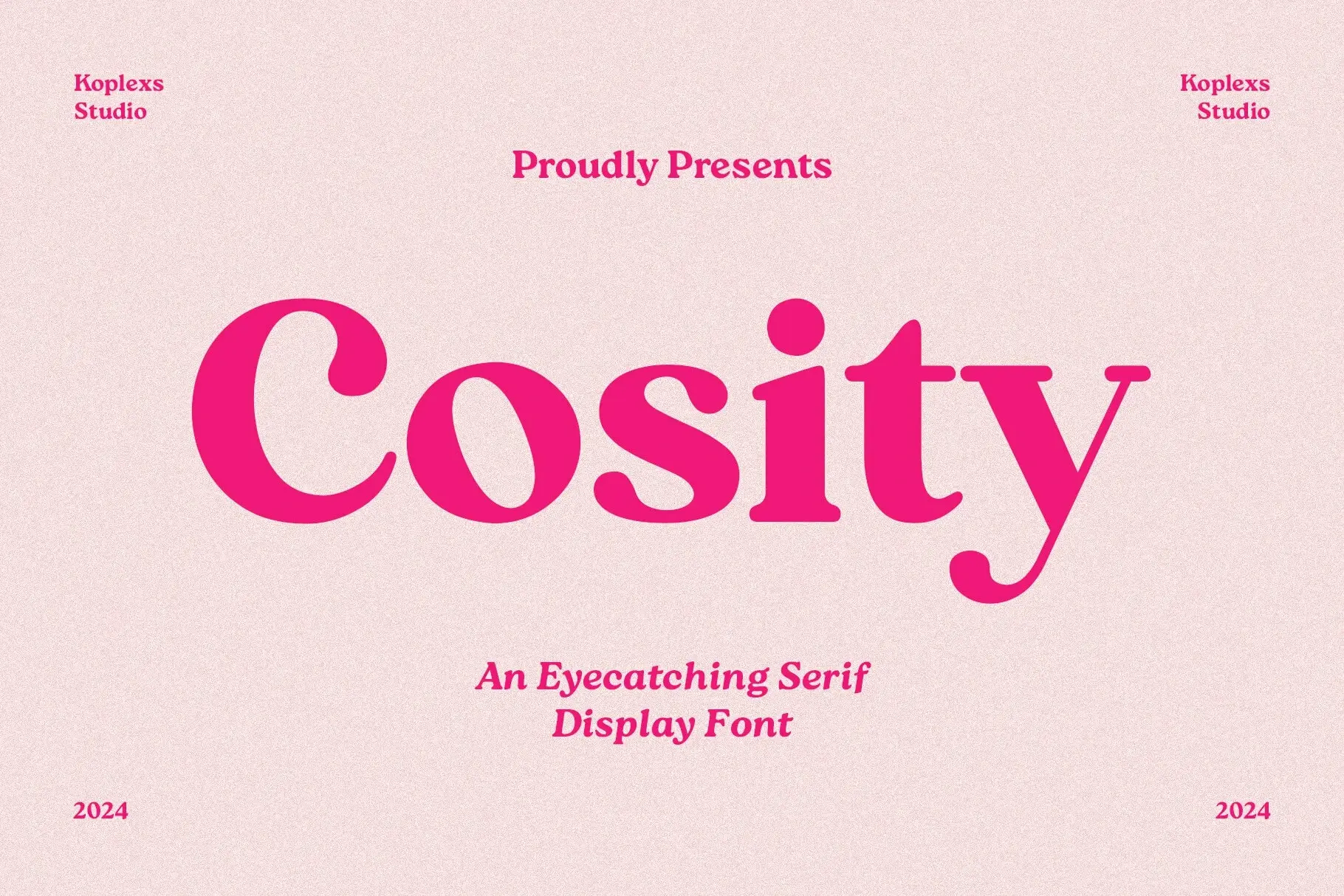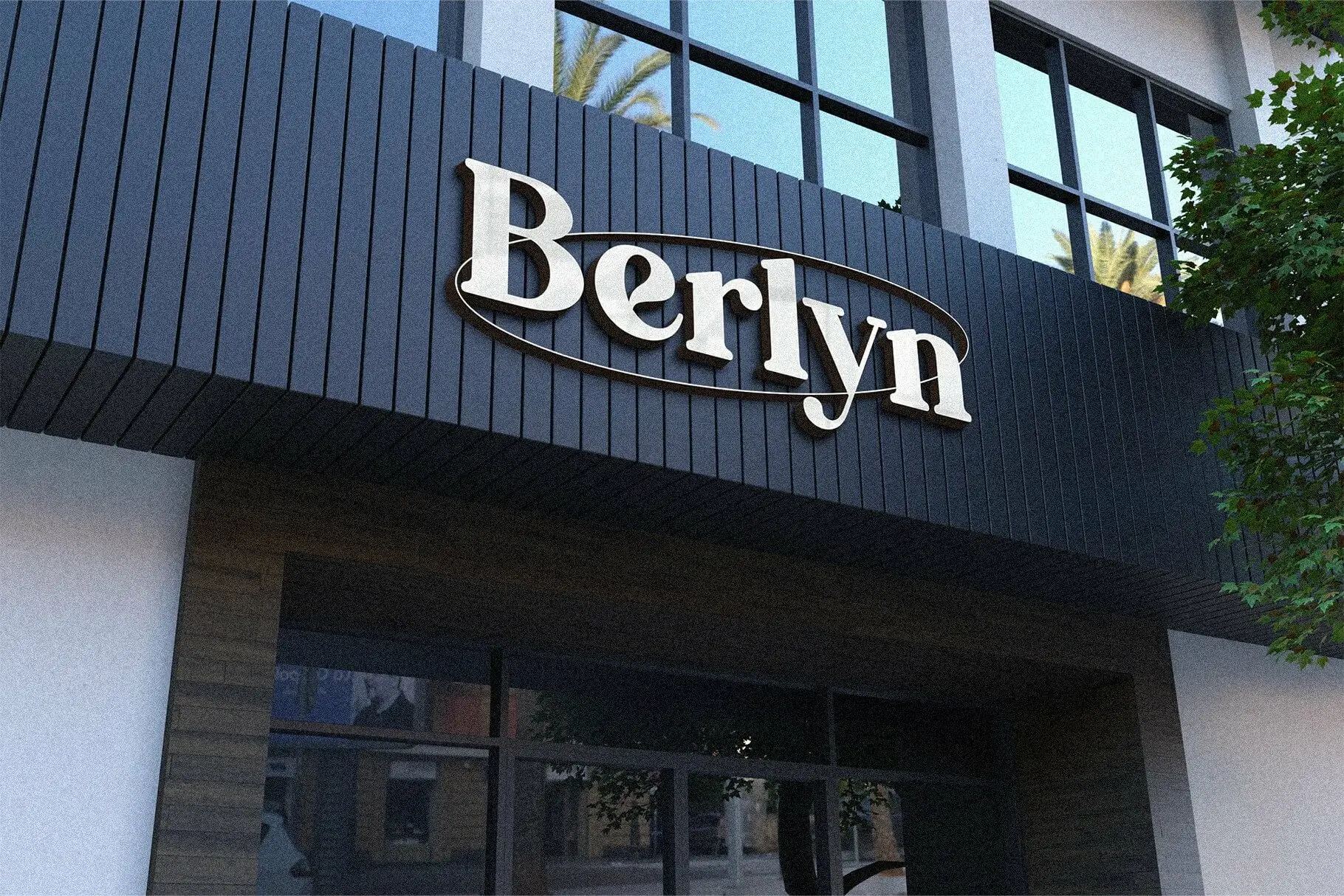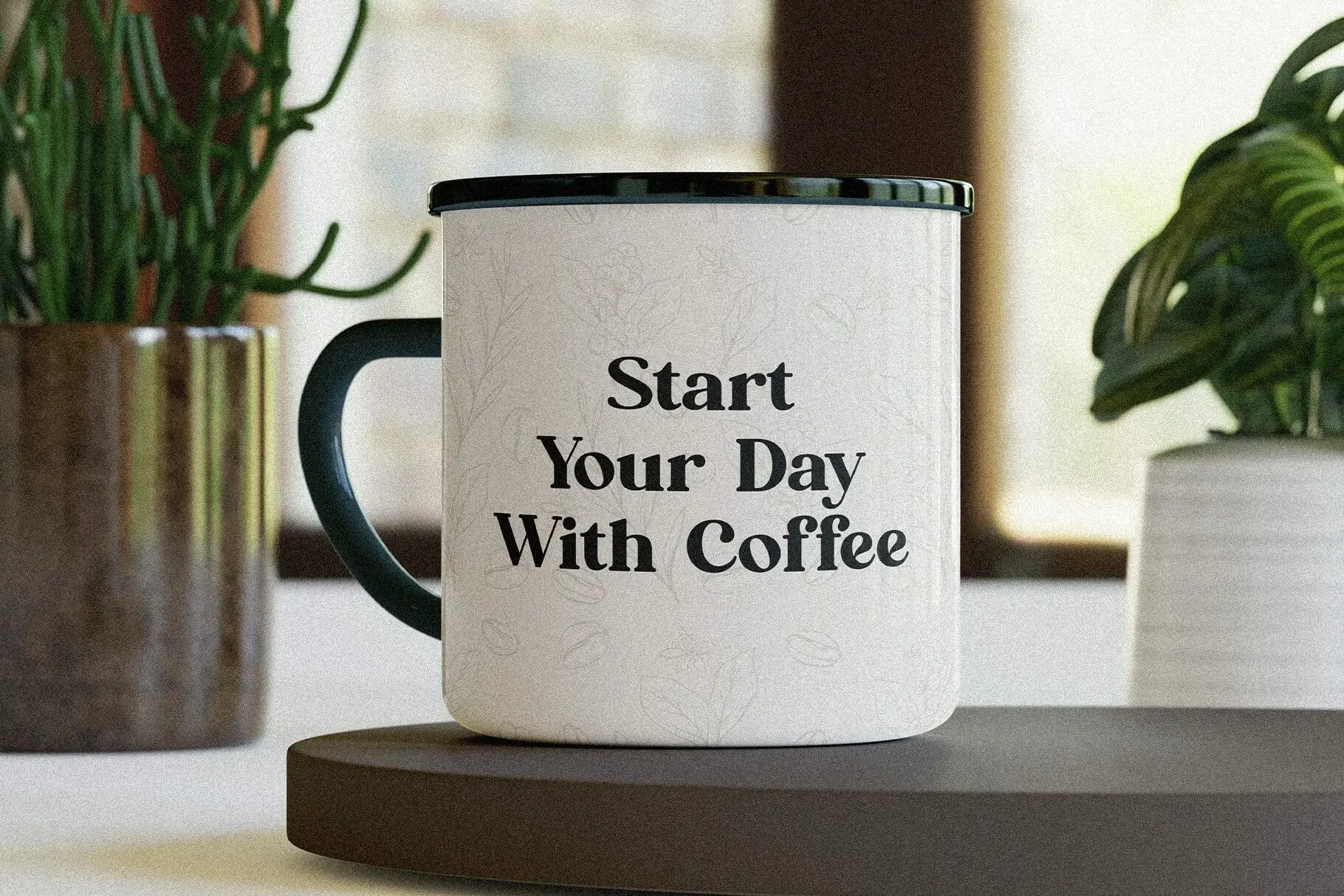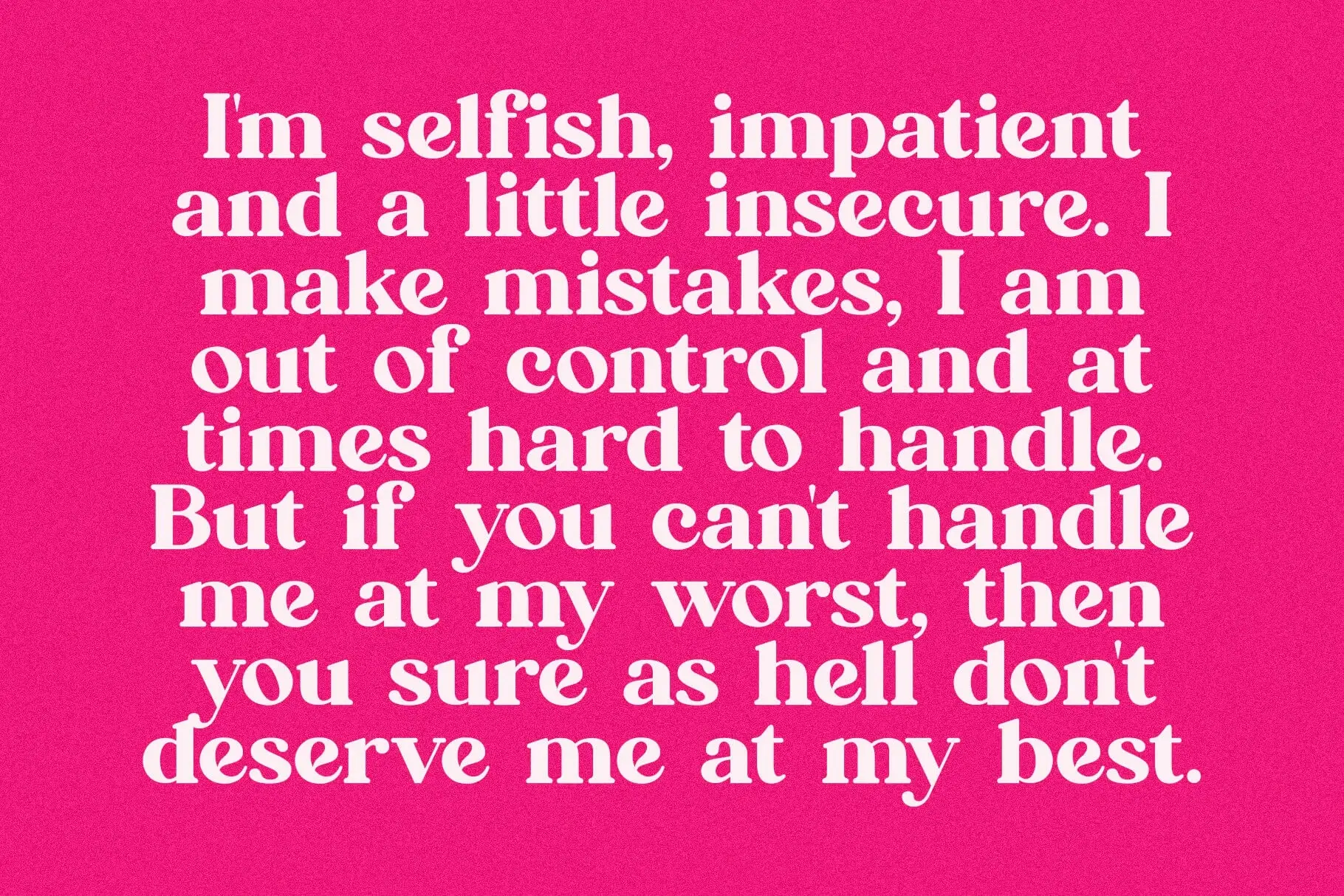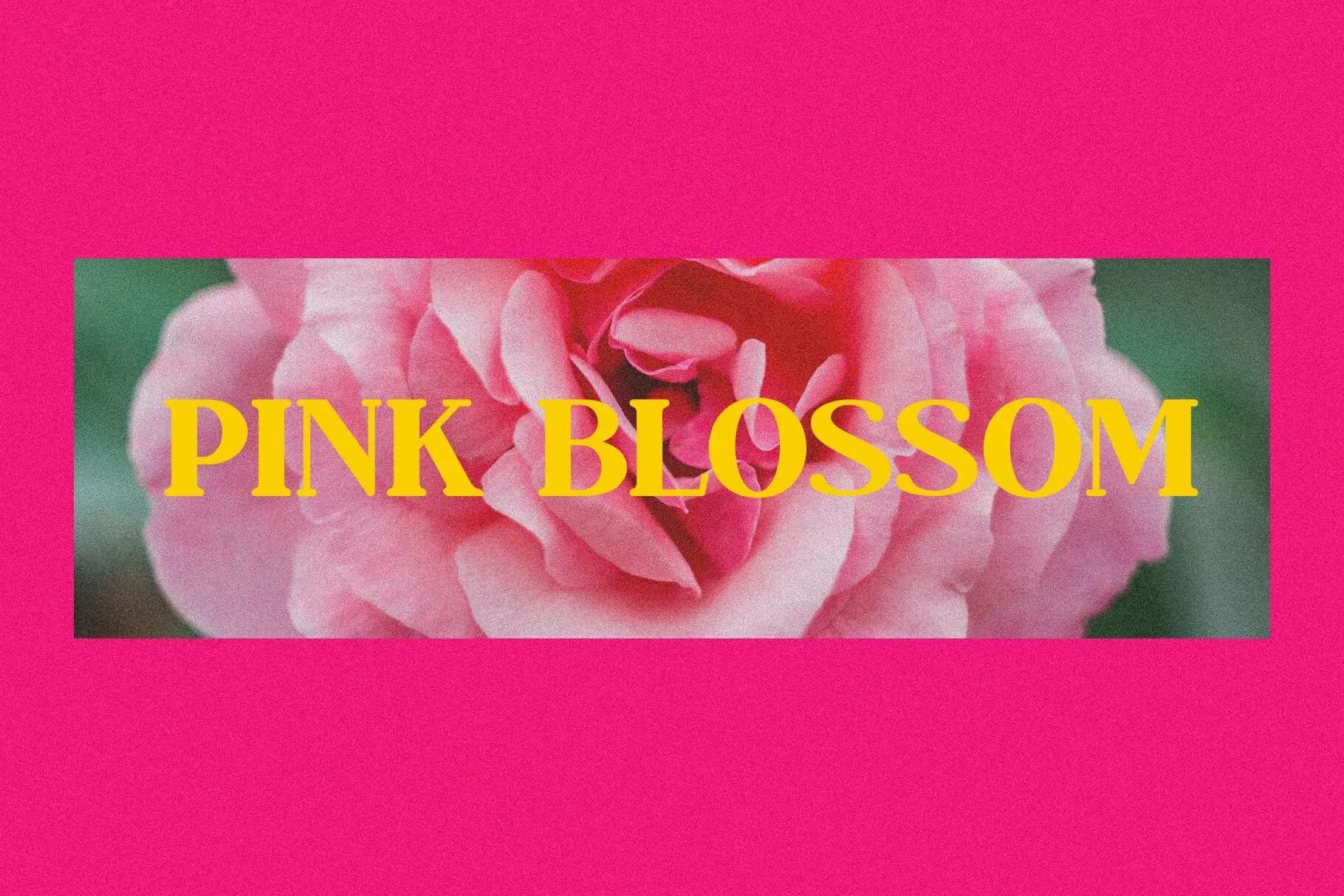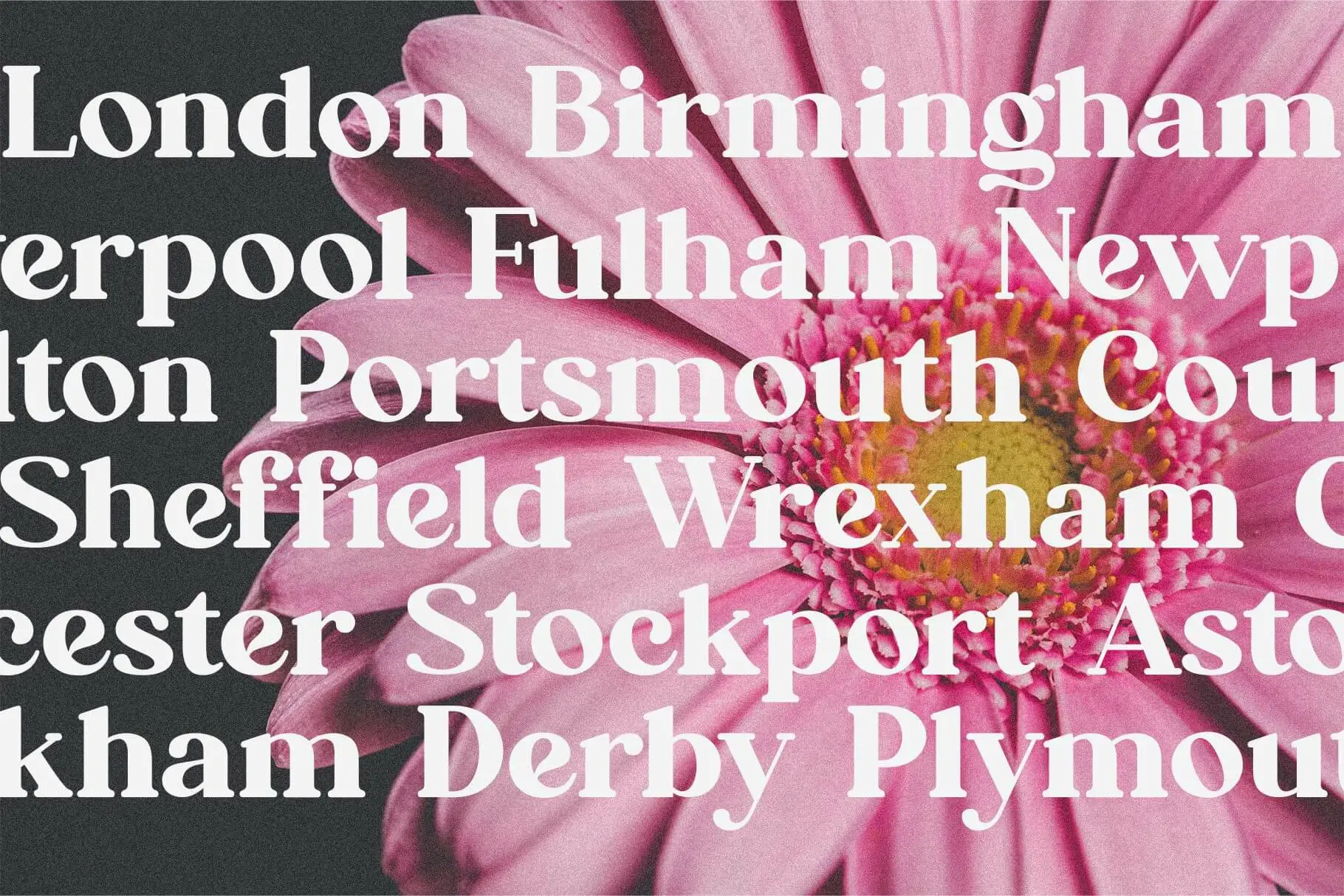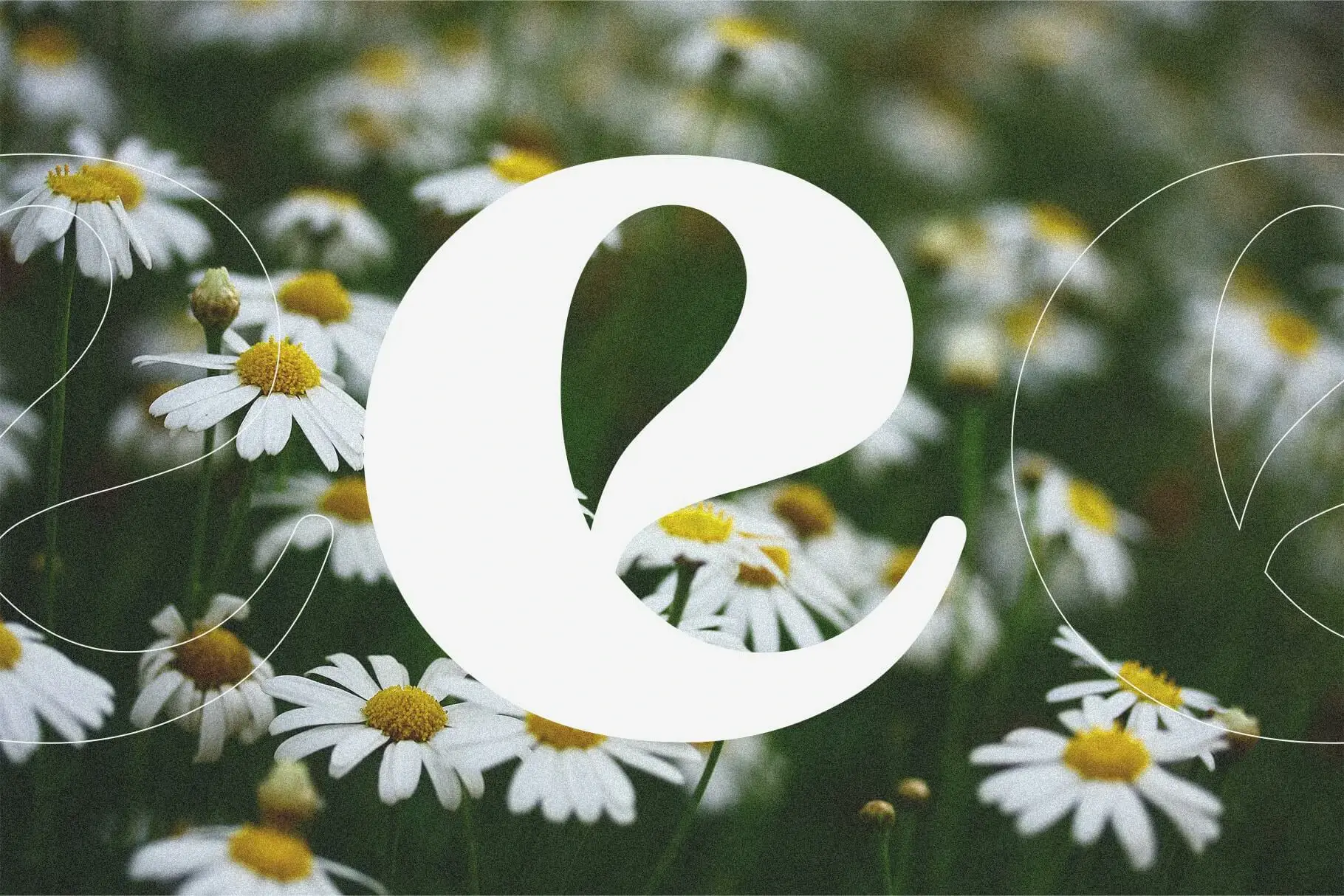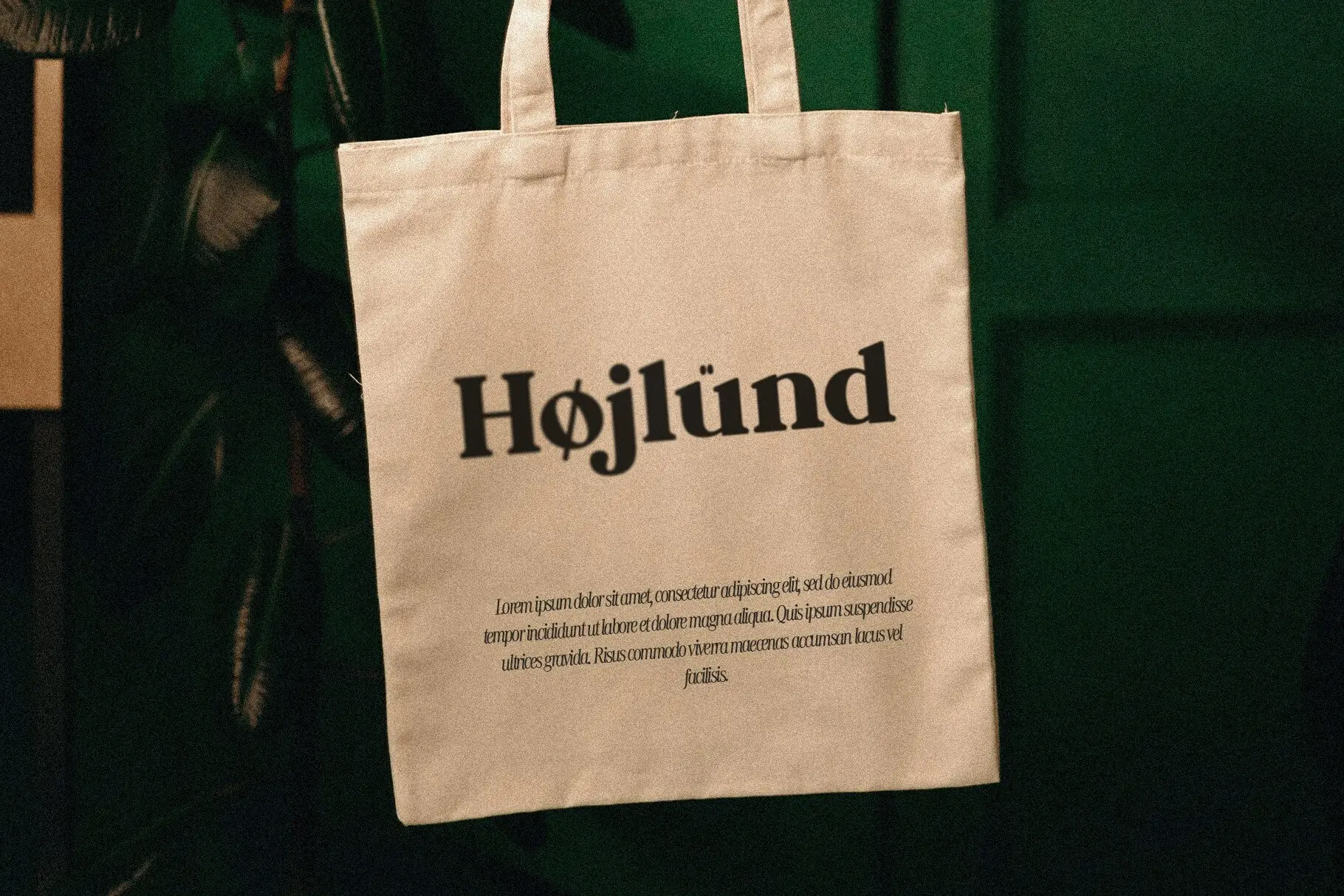
Cosity Font
Cosity Font is a modern serif font with bold curves and refined details, available in Regular & Italic. Perfect for branding, fashion, and display design.
Cosity Font
Cosity Font a vibrant and expressive modern serif font that radiates sophistication, personality, and high-impact style. Crafted for those who want their typography to make a bold yet elegant statement, Cosity combines classic charm with a modern twist, making it the perfect font for standout branding, fashion, packaging, and editorial design.
Cosity comes in two stunning styles: Regular and Italic. The Regular version is confident and poised, while the Italic adds a dramatic and romantic flair, ideal for quotes, logos, and headlines that need a sense of movement and grace.
Designed with beautiful contrast between thick and thin strokes, Cosity falls under the category of a modern serif font — yet it carries the playful boldness often seen in display serif fonts. Every letterform is tailored with attention to detail, from the gentle curves of the “C” to the expressive sweep of the “y,” creating a dynamic rhythm that elevates your layout instantly.
This typeface shines in large sizes, making it an excellent branding font for projects that require impact, confidence, and uniqueness. Whether it’s on a fashion magazine cover, a luxurious skincare product, or signage for a modern café, Cosity delivers elegance and memorability.
What Makes Cosity Font Special?
• Elegant Serif Font: With refined letter shapes and tasteful proportions, Cosity fits beautifully into high-end branding and lifestyle visuals.
• Fashion Font: Inspired by editorial aesthetics and runway typography, it’s a great match for fashion-forward logos and magazines.
• Versatile & Professional: Comes in Regular and Italic styles, offering flexibility for visual storytelling across web, print, and packaging.
• User-Friendly: Includes multilingual support, punctuation, and a complete set of uppercase and lowercase characters.
Perfect for:
• Fashion magazines and editorial design
• Luxury packaging (perfume, skincare, accessories)
• Elegant logos and brand identities
• Book covers and lifestyle blogs
• Social media graphics and headlines
• Product labels and boutique signage
Cosity’s letterforms strike a balance between bold and feminine, sharp and soft — making it a rare serif that works equally well in expressive display settings and structured typographic compositions. It’s your go-to font when you want to turn ordinary text into something artistic and eye-catching.
Whether you’re designing a modern brand or crafting an elegant editorial spread, Cosity Font is the perfect choice to add visual flair with sophistication. It’s more than a typeface — it’s a statement of style and intent.